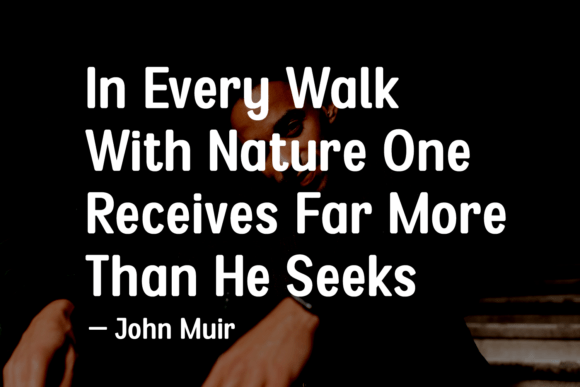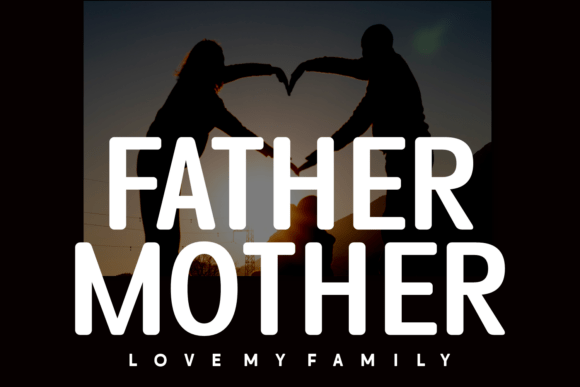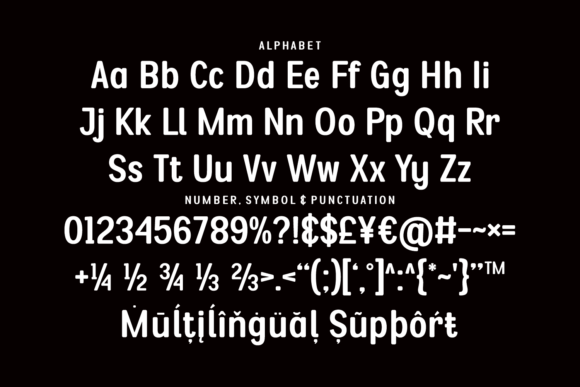
Unveiling the Droves Font: A Masterclass in Modern Elegance
In the realm of typography, few fonts manage to strike a balance between simplicity and sophistication. The Droves Font, however, effortlessly merges these seemingly disparate elements, giving birth to a sleek and assertive typeface that commands attention. With its unique blend of elegance and modern sensibilities, the Droves Font has become a go-to choice for designers and crafters seeking to elevate their visual creations.
Aesthetic Appeal: A Symphony of Simplicity and Sophistication
The Droves Font boasts a stark monochromatic palette, a hallmark of progressive design. This minimalist approach not only lends the font an air of urban sophistication but also makes it incredibly versatile. Whether you’re working on a luxe fashion editorial or a high-gloss magazine, the Droves Font seamlessly adapts to the stylish vibe, imbuing your work with a premium feel.
One of the standout features of the Droves Font is its touch of Sans Serif flair. This subtle nuance injects a modern edge into the font, making it perfect for designers who want to create striking aesthetics. The clean lines and uncomplicated elegance of the Droves Font ensure that it never goes out of style, making it a valuable addition to any designer’s toolkit.
Engineering Excellence: Designed to Shine
The Droves Font is engineered to make headlines shine. Its assertive charm and commanding presence ensure that any text transformed with this font becomes a spotlight-stealing display. Whether you’re working on a graphic design project or a print design endeavor, the Droves Font is guaranteed to leave an unforgettable impression.
What sets the Droves Font apart from other typefaces is its nuanced simplicity. Graphic and print design virtuosos will appreciate the way this font enhances their creations, adding a touch of understated class that epitomizes sheer design excellence. The Droves Font is not just a font; it’s an experience – one that elevates your work from mundane to magnificent.
Versatility Unleashed: Endless Possibilities
The Droves Font is highly versatile, effortlessly morphing into various stylish vibes with ease. Its unshakeable professional tone and premium vibe make it suitable for a wide range of editorial styles. Whether you’re working on a fashion editorial, a corporate brand, or a personal project, the Droves Font is the perfect choice.
For designers and crafters, the Droves Font offers endless possibilities. Its ability to channel the spirit of progressive design within its stark monochromatic palette makes it an excellent choice for:
- Fashion editorials: Add a touch of luxe sophistication to your fashion designs.
- High-gloss magazines: Elevate your magazine spreads with the Droves Font’s assertive charm.
- Graphic design projects: Make your graphic designs shine with the Droves Font’s spotlight-stealing display.
- Print design endeavors: Add a touch of understated class to your print designs with the Droves Font.
In conclusion, the Droves Font is a masterclass in modern elegance. Its seamless blend of simplicity and sophistication makes it a valuable addition to any designer’s toolkit. With its versatility, nuanced simplicity, and assertive charm, the Droves Font is the perfect choice for designers and crafters seeking to elevate their visual creations. Whether you’re working on a graphic design project, a print design endeavor, or a fashion editorial, the Droves Font is guaranteed to leave an unforgettable impression.